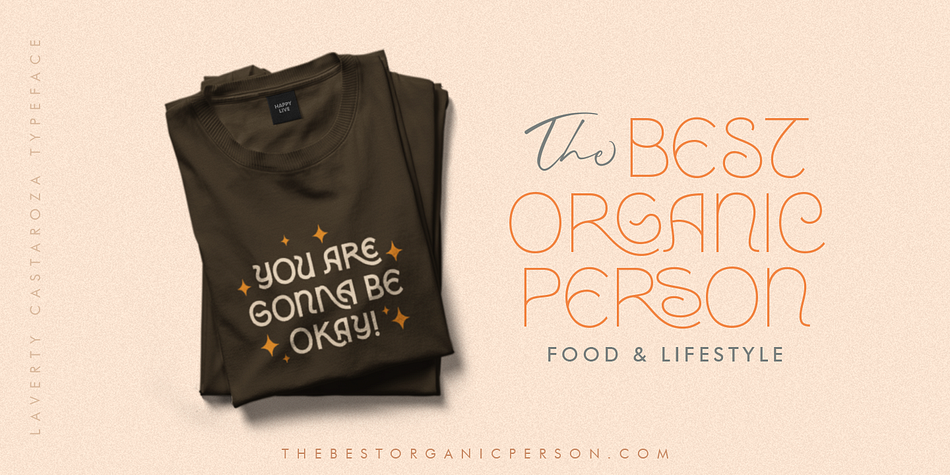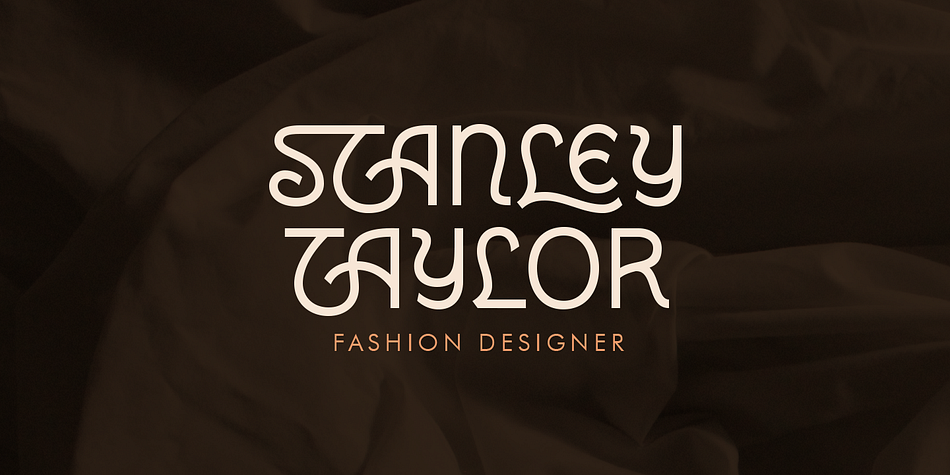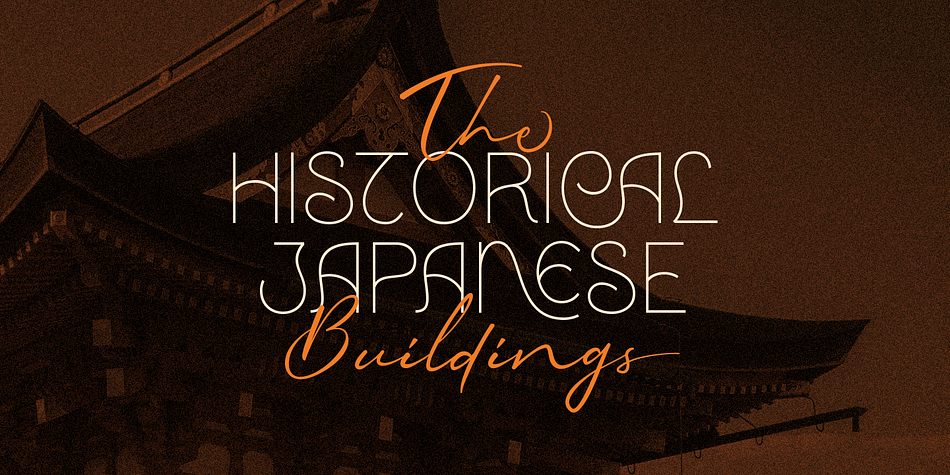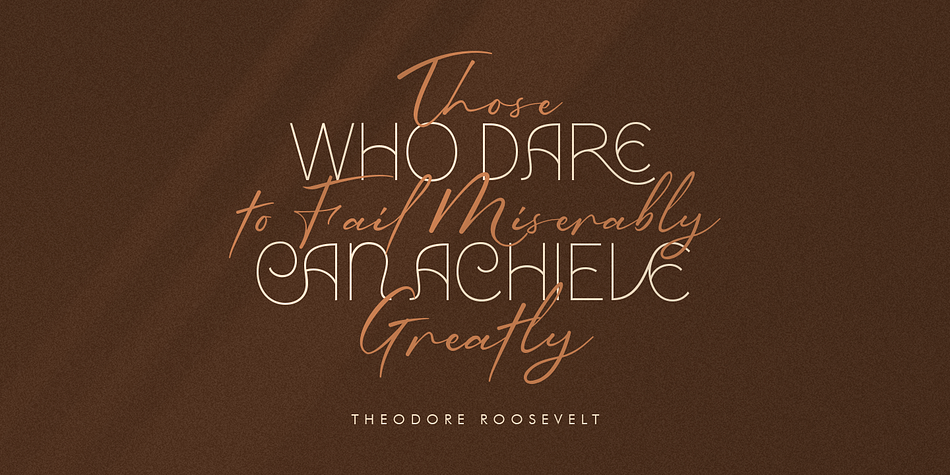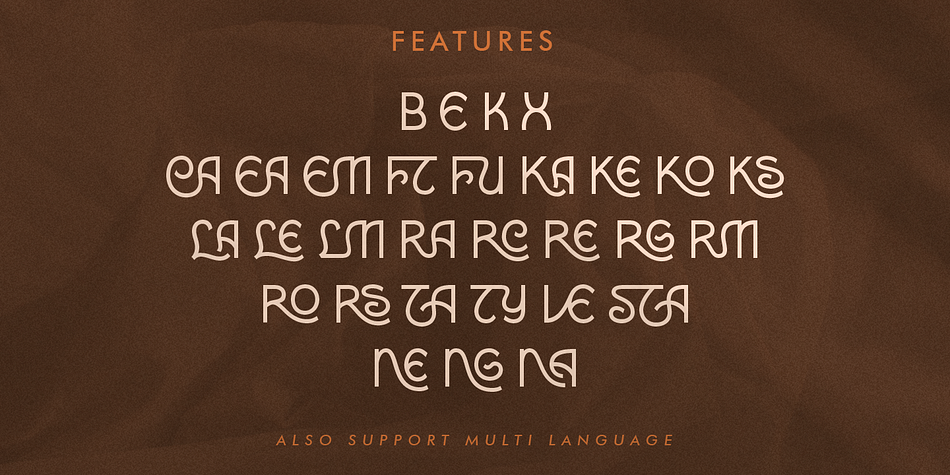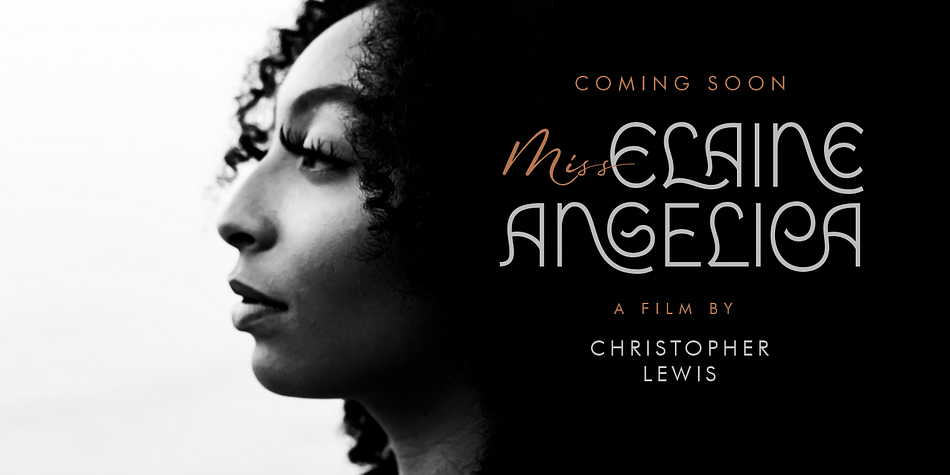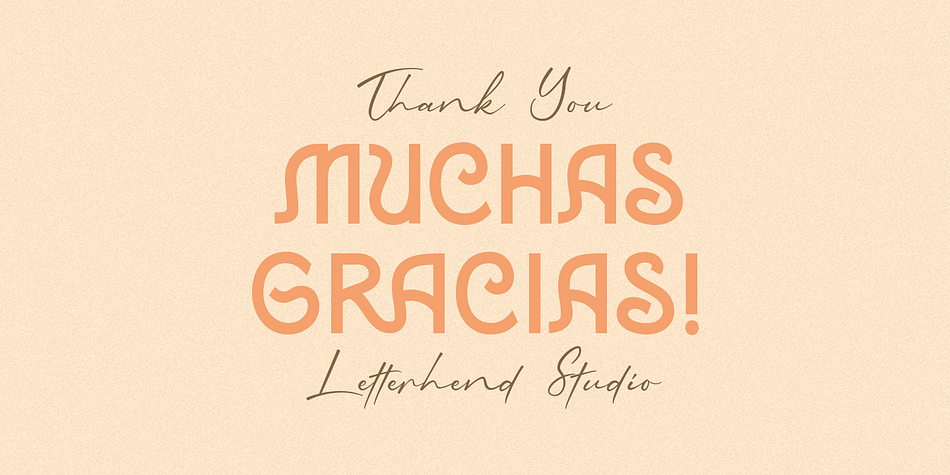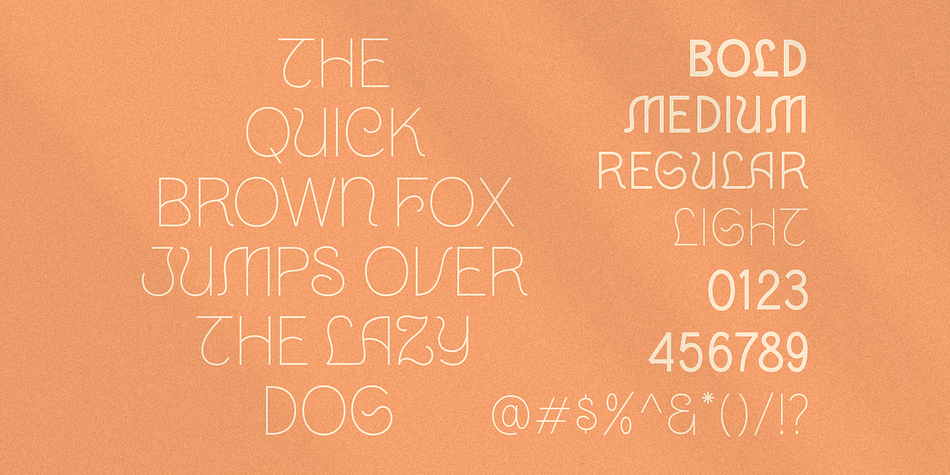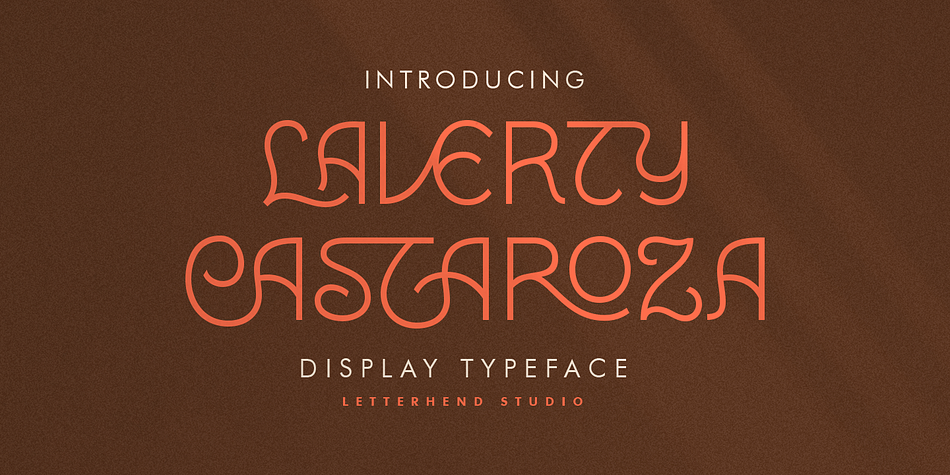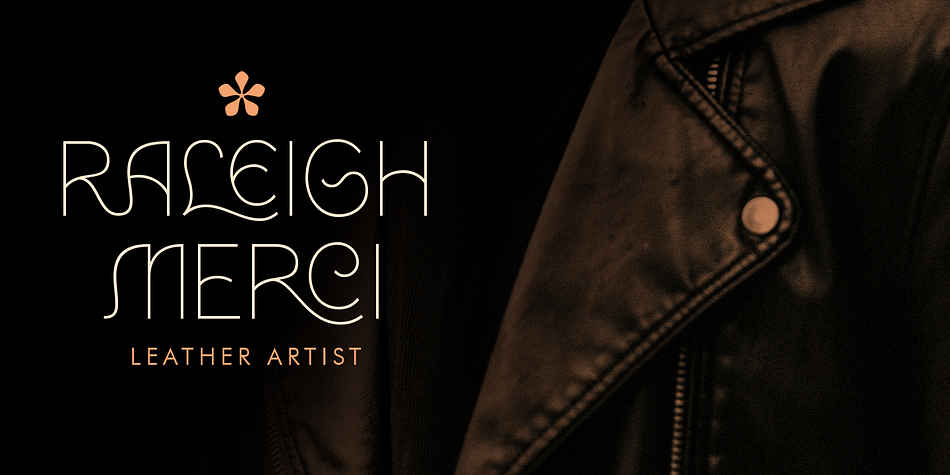
Designed by Hendry Juanda, Laverty Castaroza is a display font family. This typeface has four styles and was published by Letterhend Studio.
Introducing, Laverty Castaroza. A one of a kind display typeface with unique ligatures, provided in 4 weights - bold, medium, regular, light. This font perfectly made to be applied especially in logo, and the other various formal forms such as invitations, labels, logos, magazines, books, greeting / wedding cards, packaging, fashion, make up, stationery, novels, labels or any type of advertising purpose.
- ligatures
- alternates
- swashes